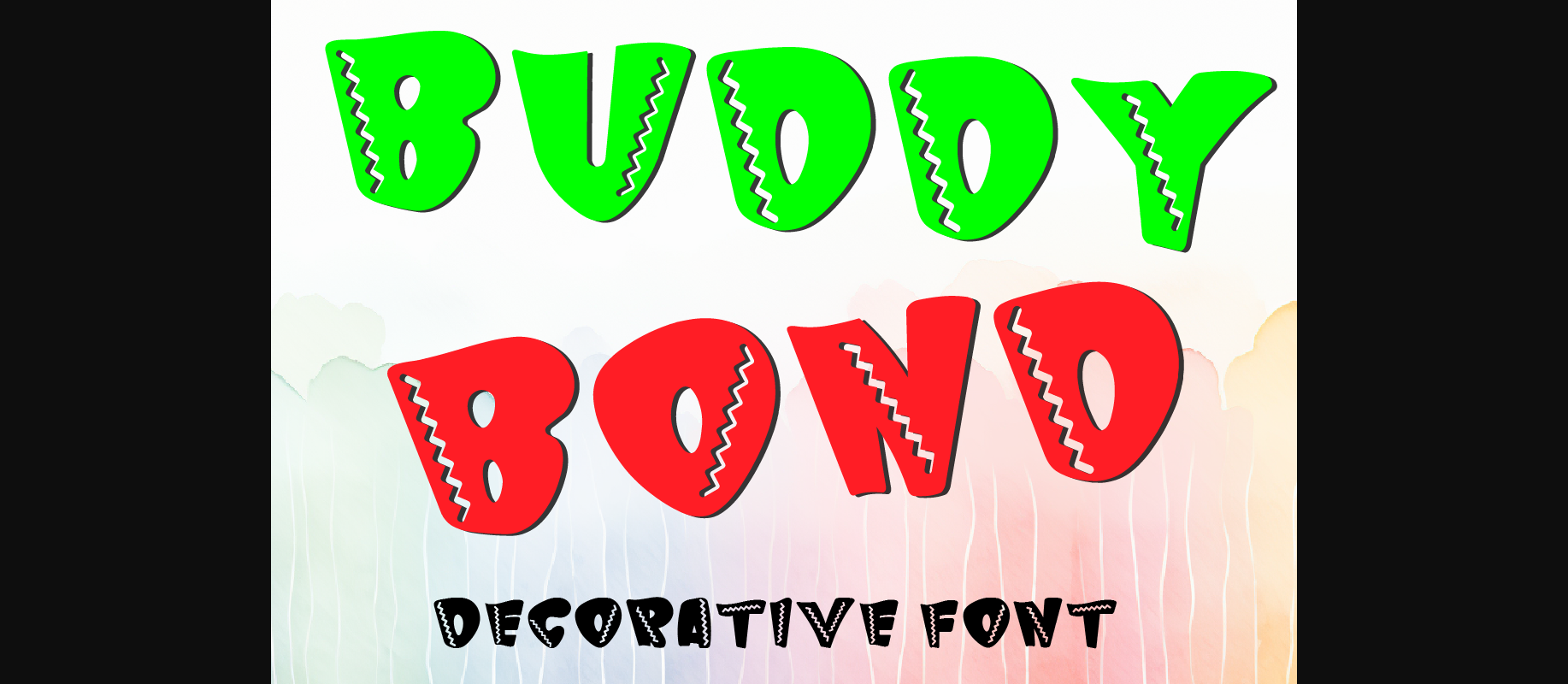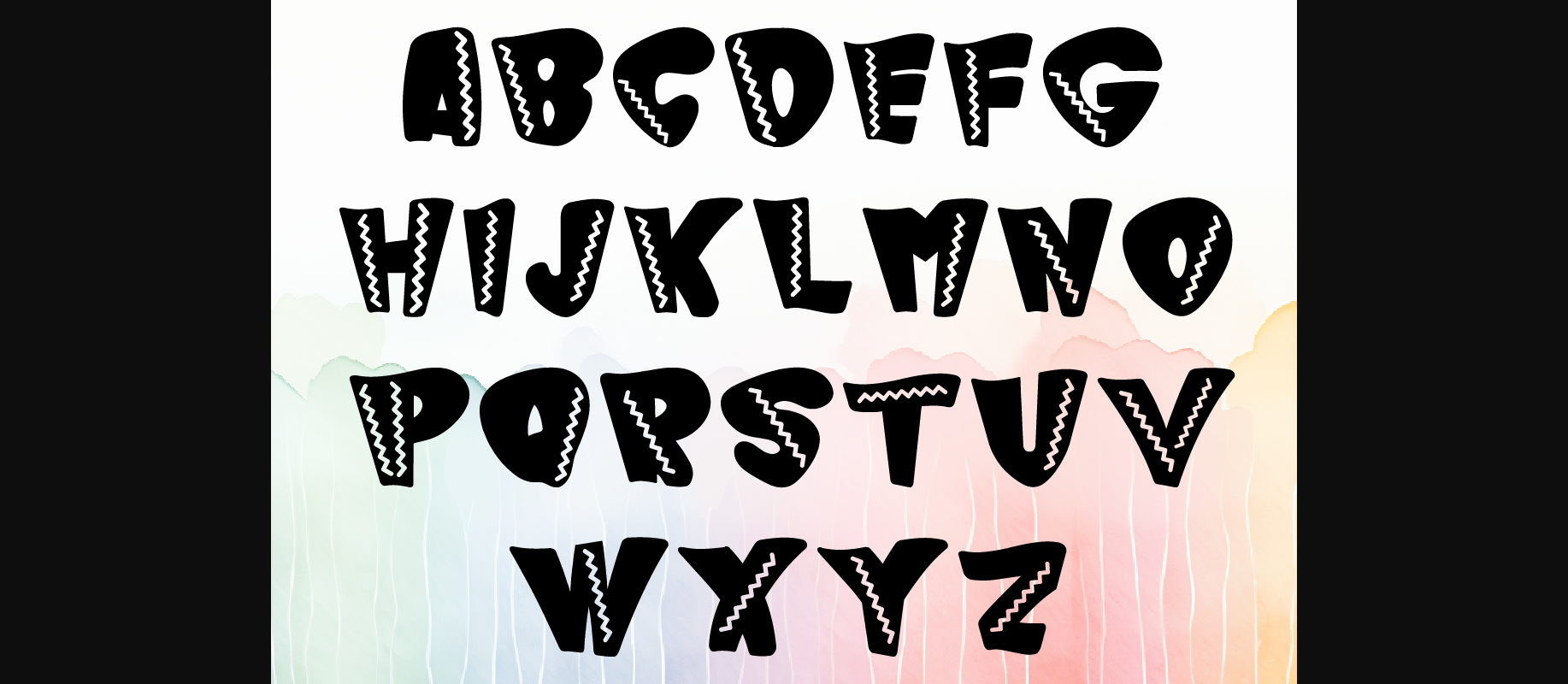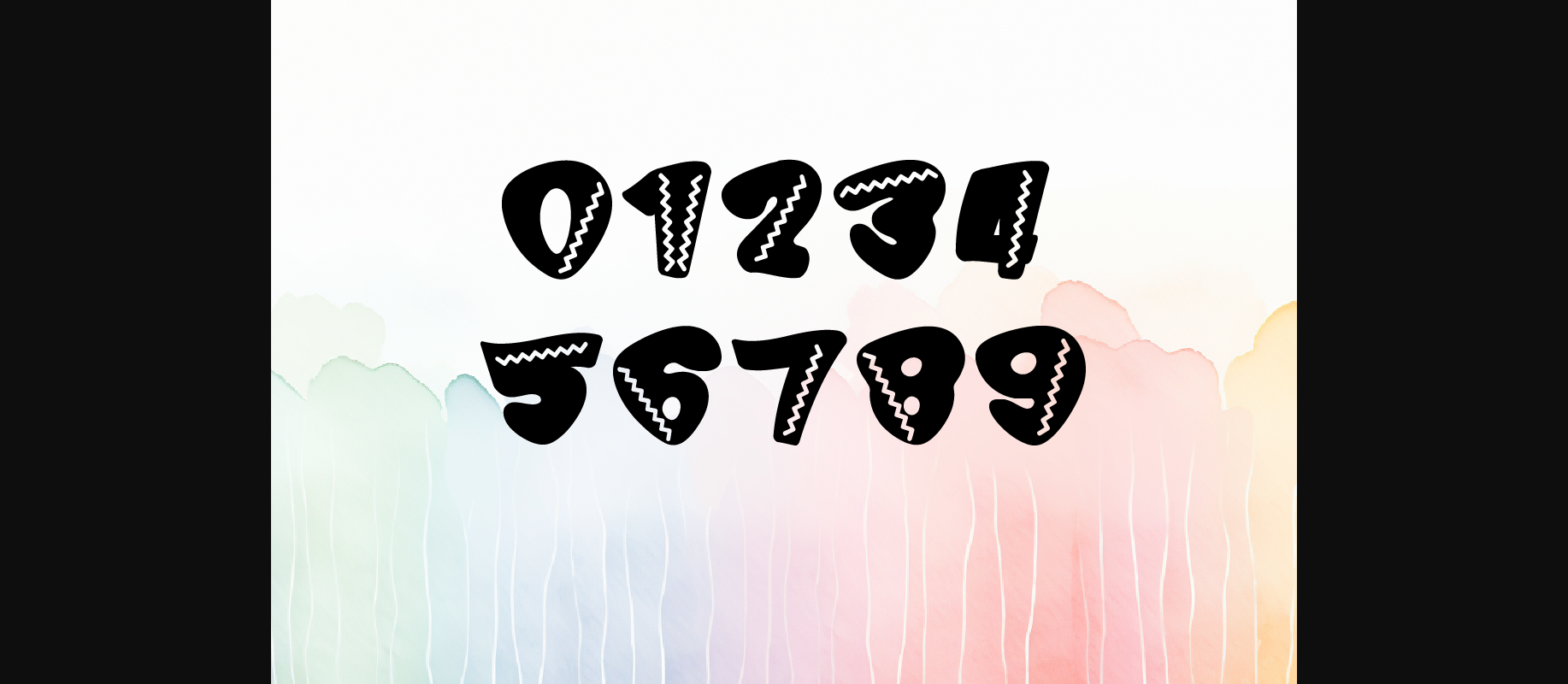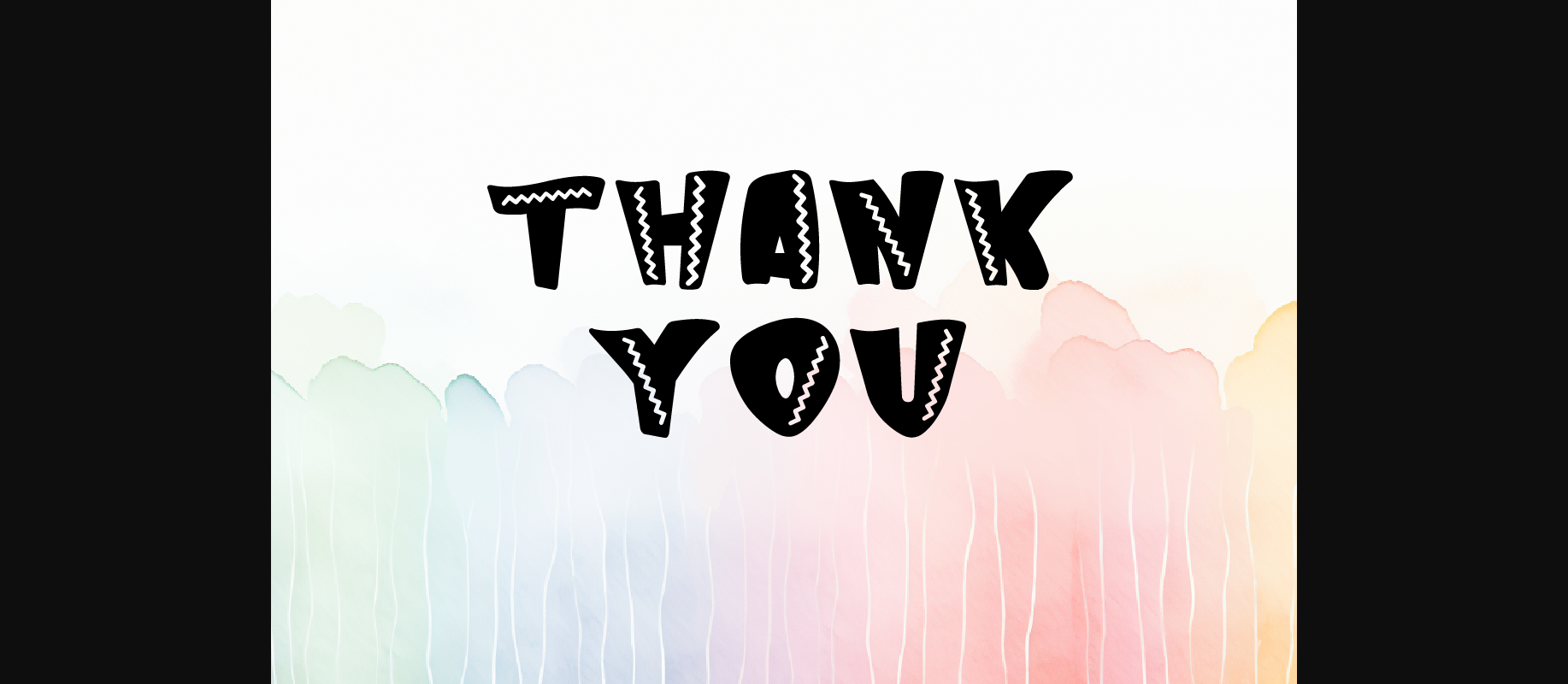
About Buddy Bond Font
Introducing Buddy Bond Decorative Font, an eye-catching typeface with a distinctive zigzag line effect! With a total of 36 characters, including 26 uppercase and 10 lowercase letters, this font is perfect for adding a unique touch to your designs. Whether you’re creating logos, headlines, posters, or other creative projects, Buddy Bond Decorative Font is sure to make a statement. Get ready to stand out from the crowd with this bold and dynamic font!